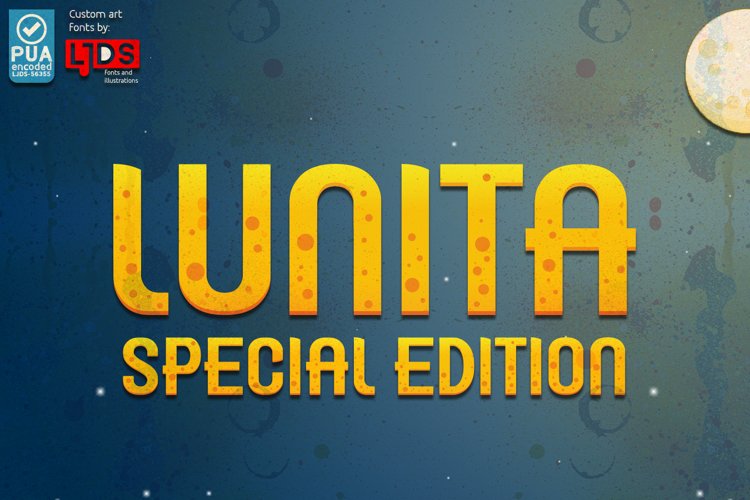
We bring a special edition of the already existing LUNITA FONT, this theme has the ability to show its color and texture incorporated in the Adobe Suite programs.
Traemos una edición especial de la ya existente LUNITA FONT, este tema tiene la capacidad de mostrar su color y textura incorporada en los programas de la Adobe Suite.